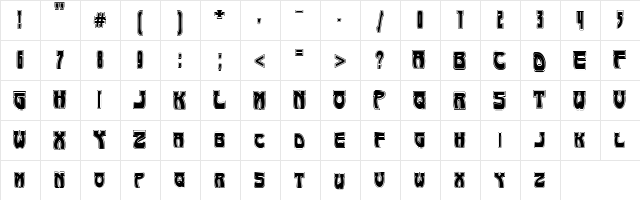
Art-Nouveau 1895-Contour Regular
| Foundry | Gophmann A.L. |
| Designer | Gophmann A.L. |
Design Context for Art-Nouveau 1895-Contour Typeface
Art-Nouveau 1895-Contour is a composed and adaptable typeface that performs quietly and consistently across a wide range of design contexts.